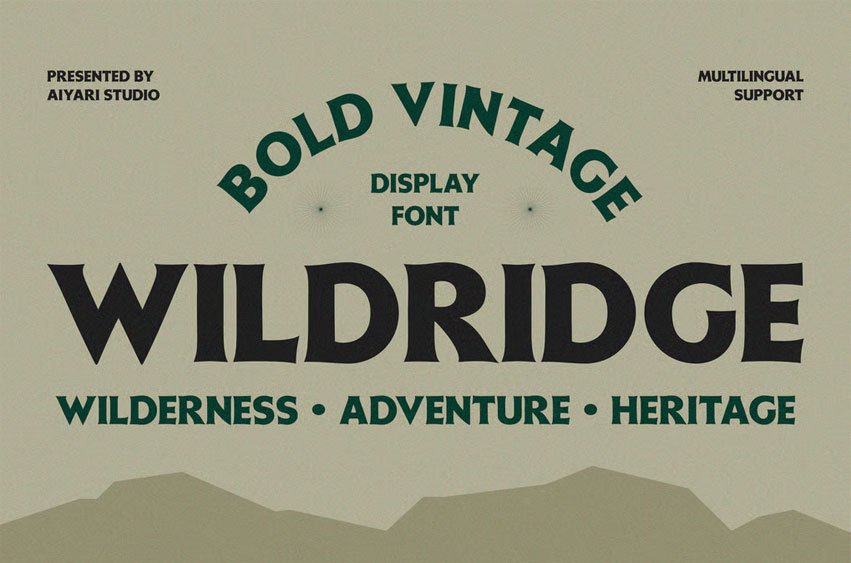
Wildridge Font is a bold vintage display font inspired by the great outdoors. With flared serifs, rugged curves, and a sturdy stance, this typeface captures the spirit of wilderness, adventure, and heritage.
Wildridge is made to elevate any project that calls for a sense of nature, strength, and timeless charm.